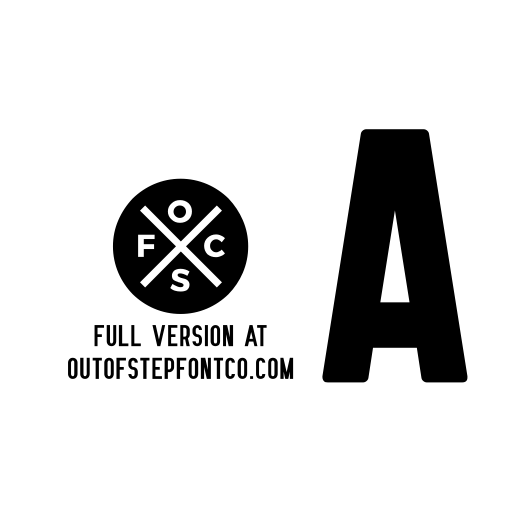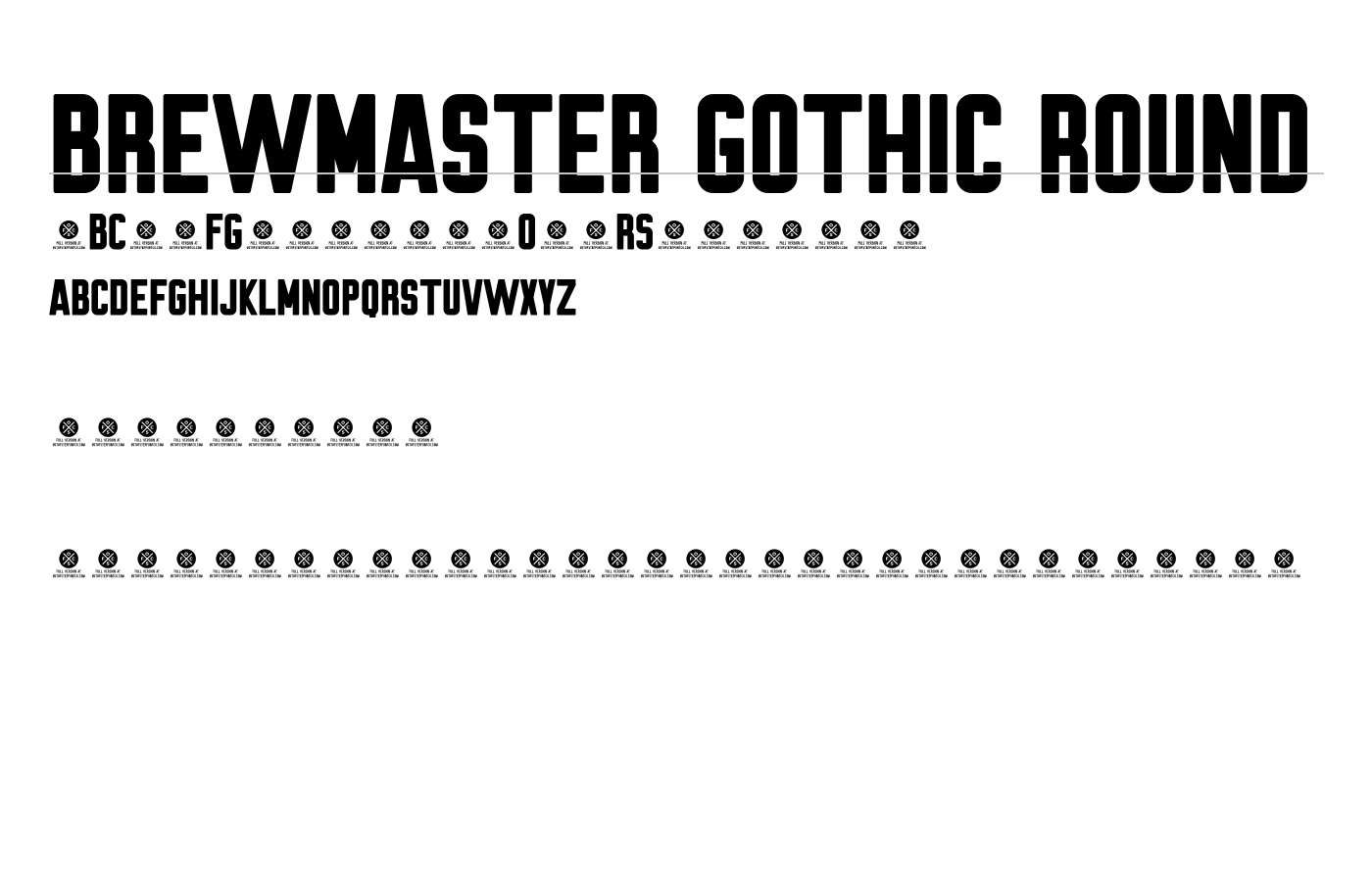
Brewmaster Gothic Round is a bold, condensed sans serif font with smooth, rounded edges that bring a friendly yet strong presence to the text. Its tall, uniform letterforms and tight spacing make it ideal for impactful headlines and branding, especially in modern and industrial contexts. This font works well for logos, posters, and packaging where a clean but assertive style is needed to grab attention.
Brewmaster Gothic Round Font
About Brewmaster Gothic Round Font
| Font family | Brewmaster Gothic Round Font |
| Designer | Out Of Step Font Company |